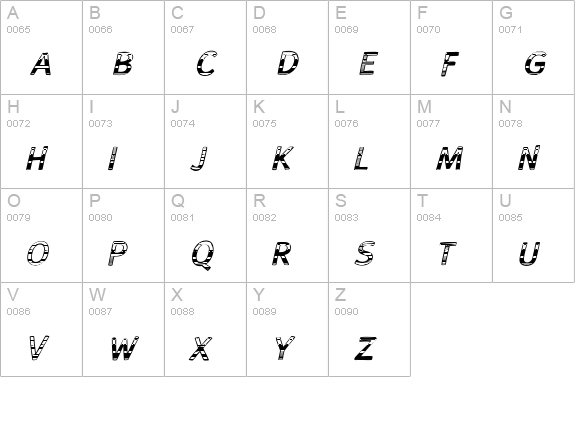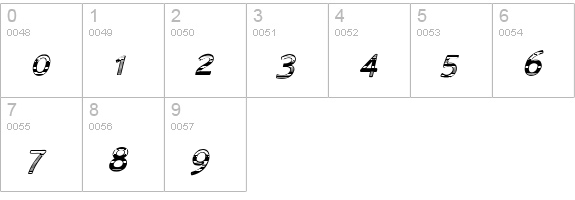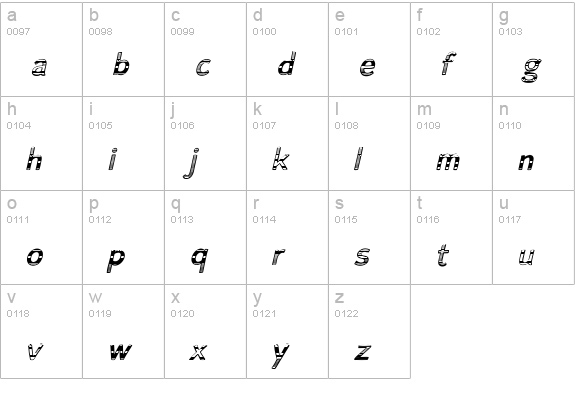
Alum Free Promotional 2 Font Details
Alum Free Promotional 2 font is a sleek and modern typeface that exudes sophistication and elegance. Its clean lines and stylish curves make it perfect for a wide range of design projects, from branding to advertising. This versatile font is completely free to use and is available for download at FontsMarket.com. With Alum Free Promotional 2 font, you can add a touch of class to your designs without breaking the bank. Don't miss out on this fantastic free font!